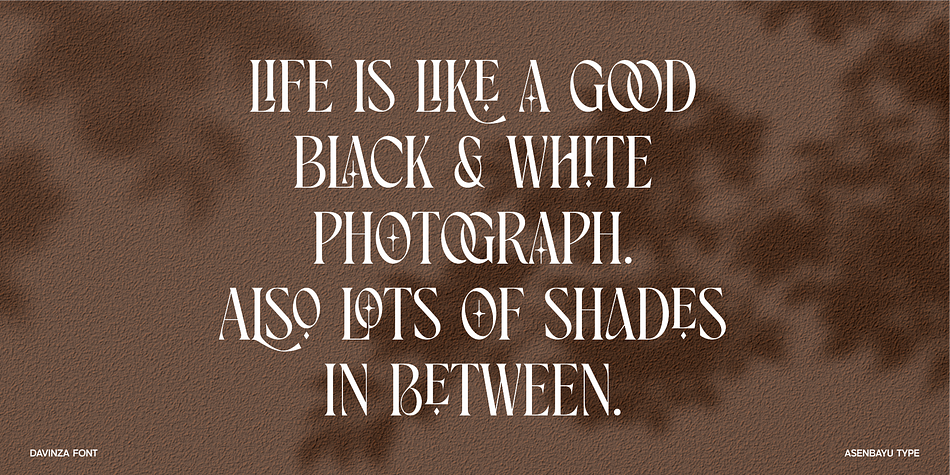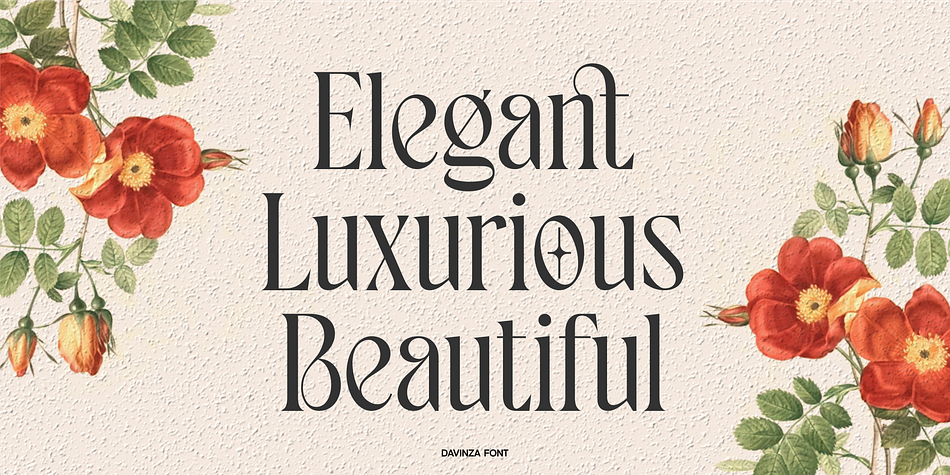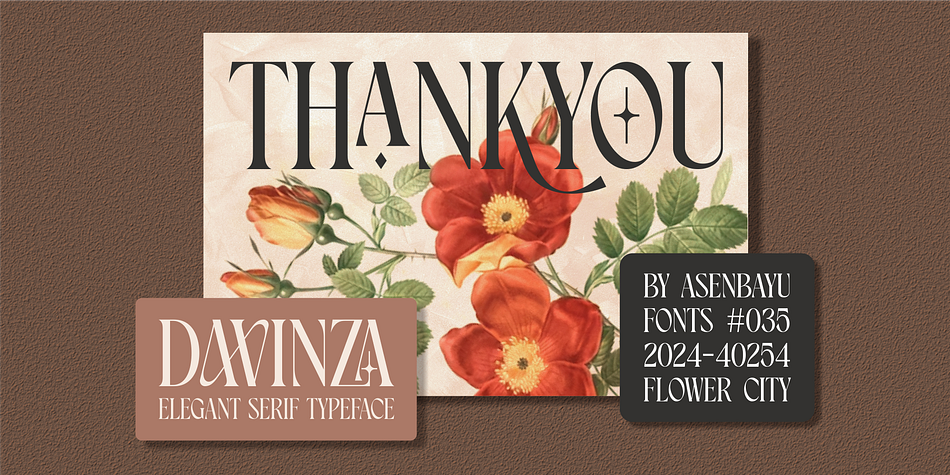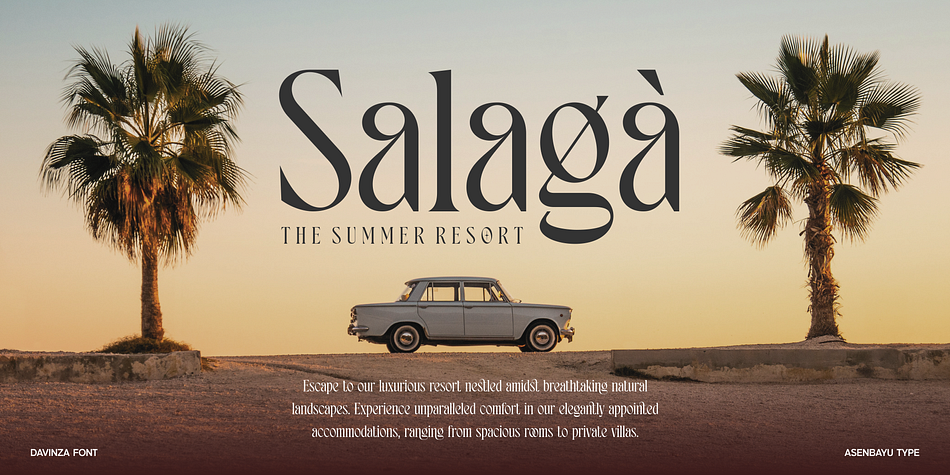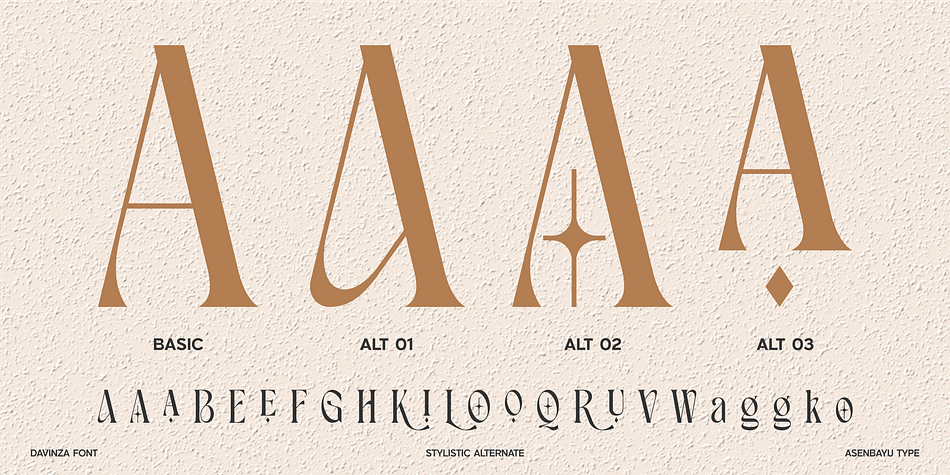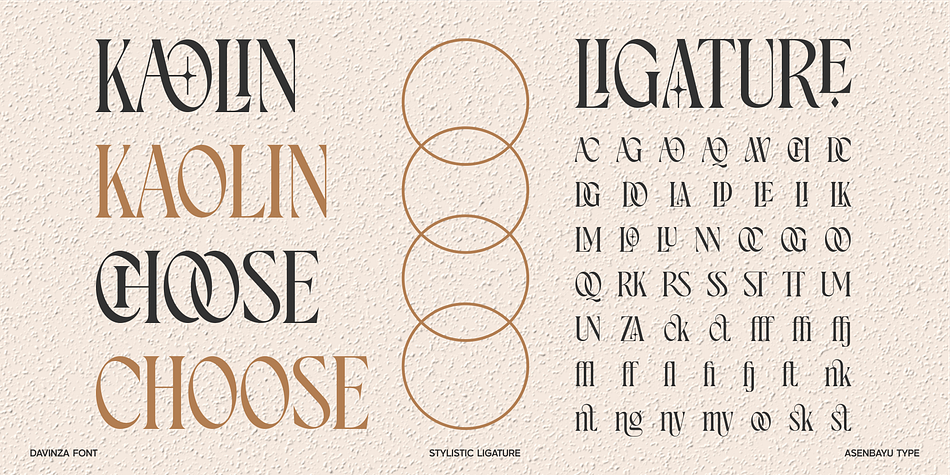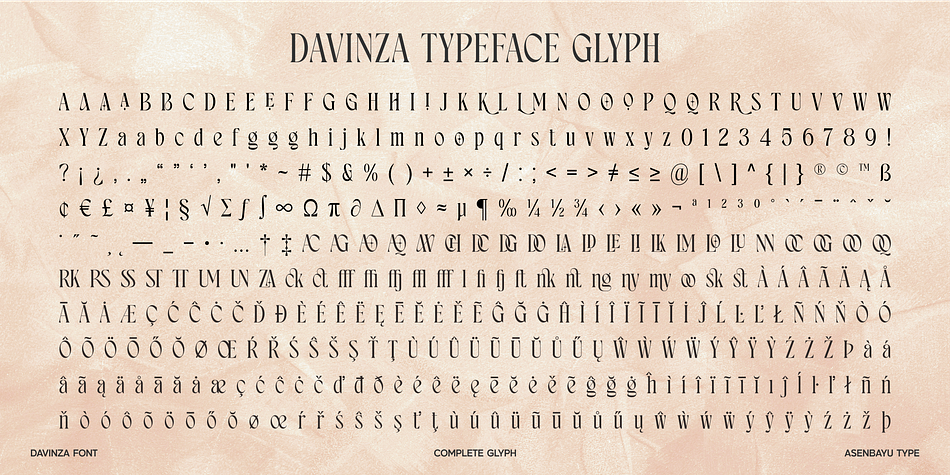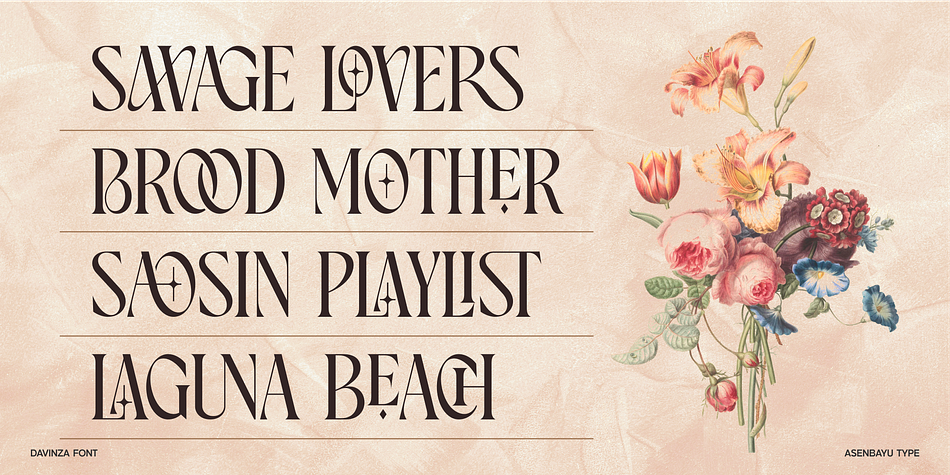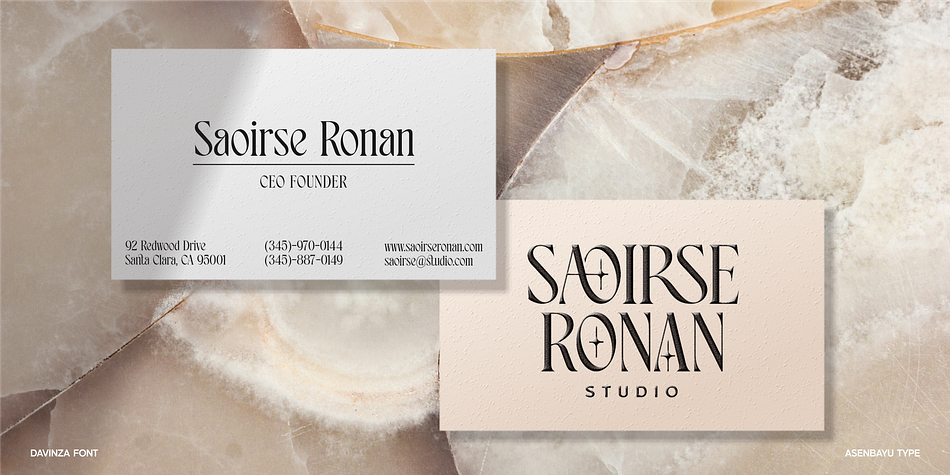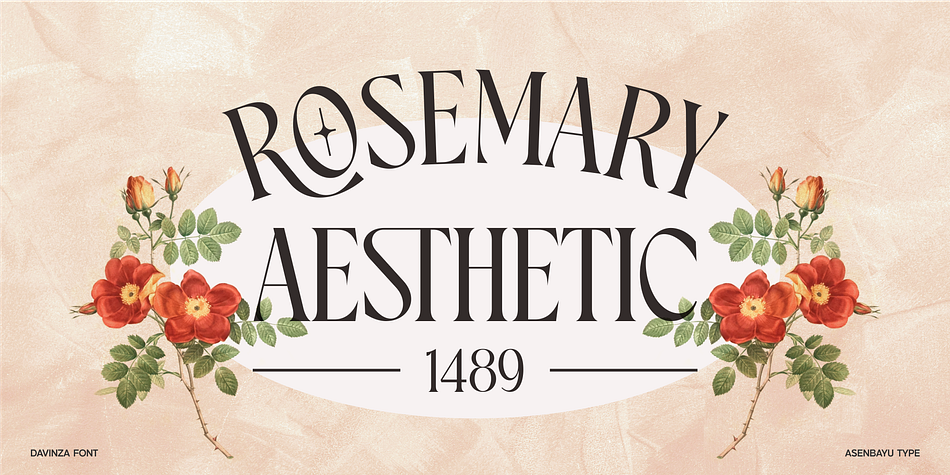
DAVINZA
DAVINZA is a serif font family published by Asenbayu.
Davinza is stunning elegant serif typeface. This font has slim and tall letter proportions so it can give a high-end and minimalist impression. You can use this font in both modern and vintage designs. Use it to convey desired logo designs, attractive posters, unique social media designs, fashion and websites. Stylistic alternate and ligature features are available to achieve your design satisfaction.
Davinza font features:
- Standard glyphs
- Kerning
- Stylistic alternates & ligatures
- Symbol & punctuation
- Multiple languages supported.